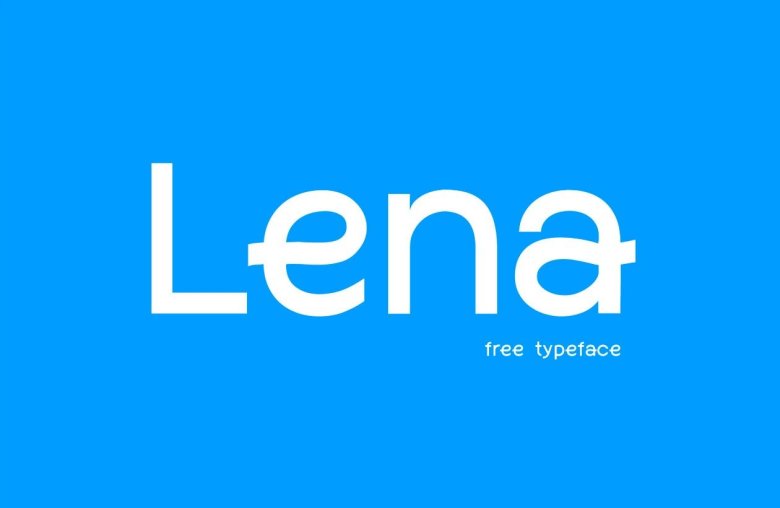
Lena Font
Lena Font designed by Vsevolod Abramov is a sans serif typeface that can be used for many occasions. This font perfect for all kind of design: social media and visual content, web and UI design, posters and art collage, branding and logos, wedding typography and modern hi-tech design.